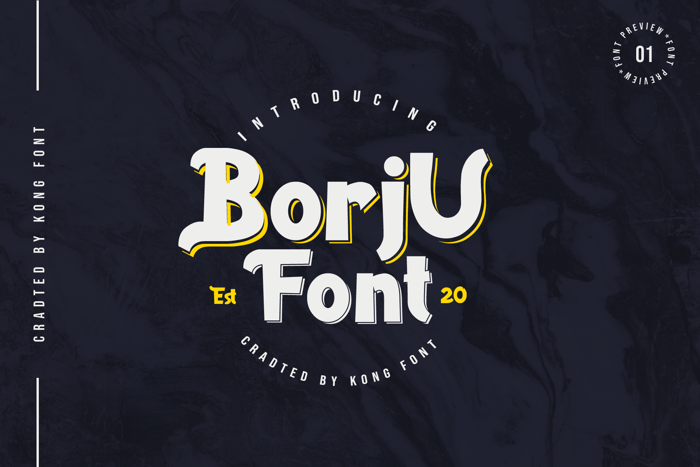
Borju Font
Introducing our New Font, very suitable to make an adorable invitation for a wedding, birthday, special day, and also perfect for your other project branding.